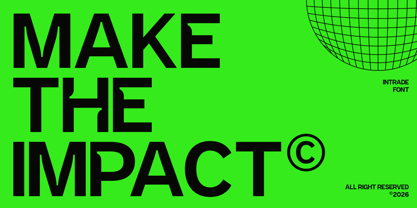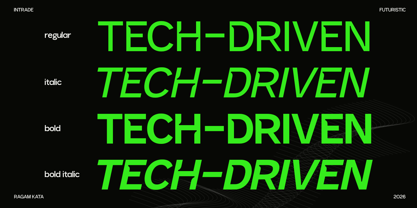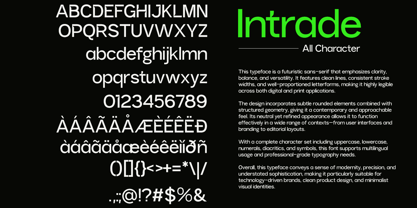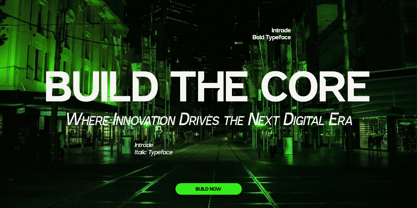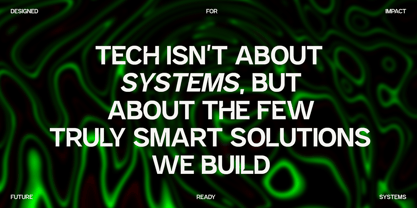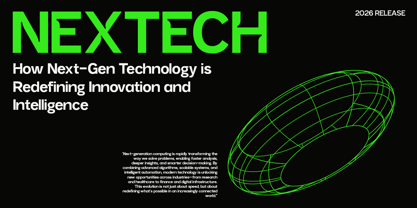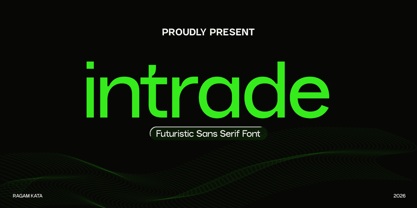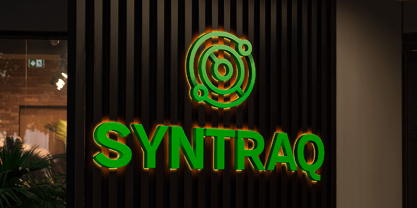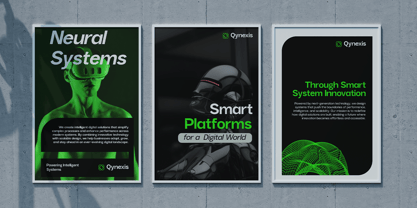
Intrade
by RagamKata
The Intrade Font Family was designed by Yogiswhara Dio Prakoso Riadi and published by RagamKata. Intrade contains 4 styles and family package options. More about this family
Intrade is a futuristic sans serif font that embodies the essence of modern technology and digital innovation. Featuring a clean geometric structure and smooth curves, Intrade offers a sleek, forward-thinking aesthetic that is both minimal and powerful. Its balanced proportions and sharp design make it an excellent choice for establishing a strong and professional visual identity.
Inspired by cutting-edge tech, startups, and sci-fi visuals, Intrade is perfect for projects that demand a modern and high-tech appearance. Whether you're focused on branding, UI design, gaming titles, digital products, or tech presentations, this font provides clarity, precision, and a futuristic edge to your work. Its simplicity guarantees outstanding readability while preserving a distinctive style.
Intrade is tailored for designers aiming to convey innovation, speed, and modernity. From tech logos to digital campaigns, this font helps create bold and impactful visuals that stand out in the fast-paced digital landscape.
Designers: Yogiswhara Dio Prakoso Riadi
Foundry: RagamKata